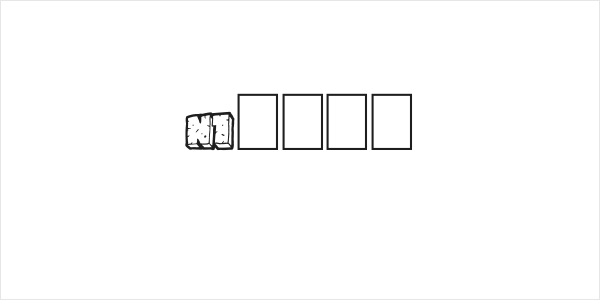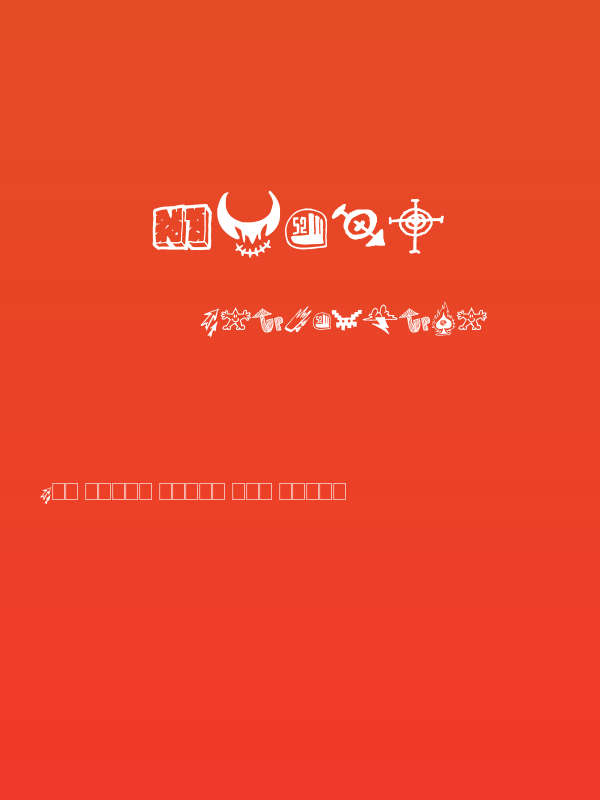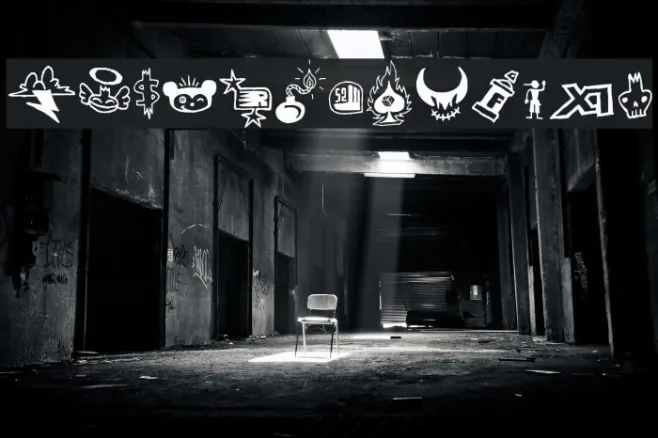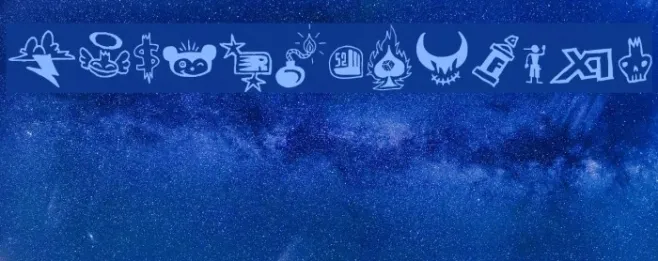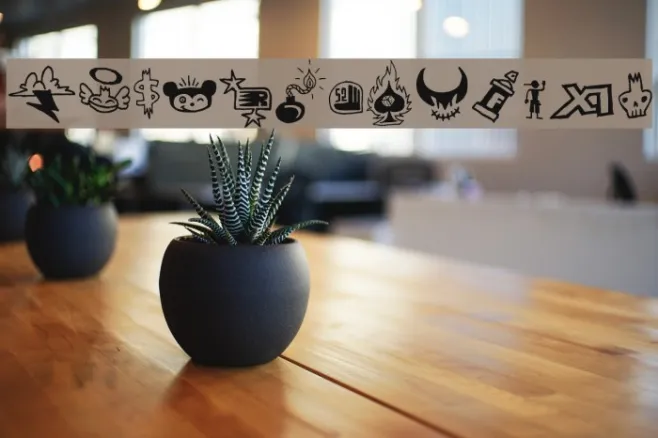
Signz Font
Signz Description
This collection of symbols presents a playful and eclectic mix of graphic elements, each with a distinct and whimsical style. The icons range from cartoonish characters to abstract shapes, each imbued with a sense of fun and creativity. The designs are bold and eye-catching, featuring thick lines and dynamic forms that convey a sense of movement and energy. The variety of symbols includes elements like lightning bolts, skulls, and playful creatures, each rendered with a unique flair that makes them stand out. The overall aesthetic is reminiscent of street art or graffiti, with a rebellious and youthful vibe that is both engaging and visually striking.
| Use Case | Logos, Posters, Merchandise |
| Proposed Projects | Ideal for use in graphic design projects that require a fun and edgy touch, such as posters, album covers, or merchandise designs. |